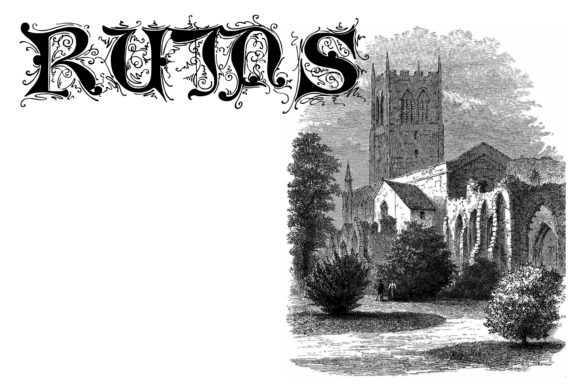
Journey back to the era of timeless elegance with Tosca Font, a captivating blackletter font family designed by Intellecta Design. Inspired by the rich Tuscan heritage, Tosca captures the essence of vintage charm and sophistication. Its meticulously crafted glyphs evoke a sense of nostalgia, adding a touch of history and romance to your creative projects.
Elevate your designs with the bold and captivating strokes of Tosca. Its distinctive letterforms, reminiscent of ancient manuscripts, lend an air of authenticity and intrigue to your work. Whether you're crafting logos, invitations, posters, or any other design that demands attention, Tosca will leave a lasting impression.
With Tosca Font, you'll unlock a world of creative possibilities. Its versatile nature makes it perfect for a wide range of applications. From branding and marketing materials to wedding invitations and vintage-inspired designs, Tosca seamlessly adapts to your vision.
Immerse yourself in the artistry of Tosca's intricate details. Each character is meticulously designed to reflect the beauty of traditional blackletter calligraphy. The flowing lines and delicate serifs add a touch of elegance and refinement to your designs.
Unleash your creativity with Tosca Font and embark on a journey through time. Let its timeless beauty inspire your next masterpiece and transport your audience to a world of vintage charm and sophistication.